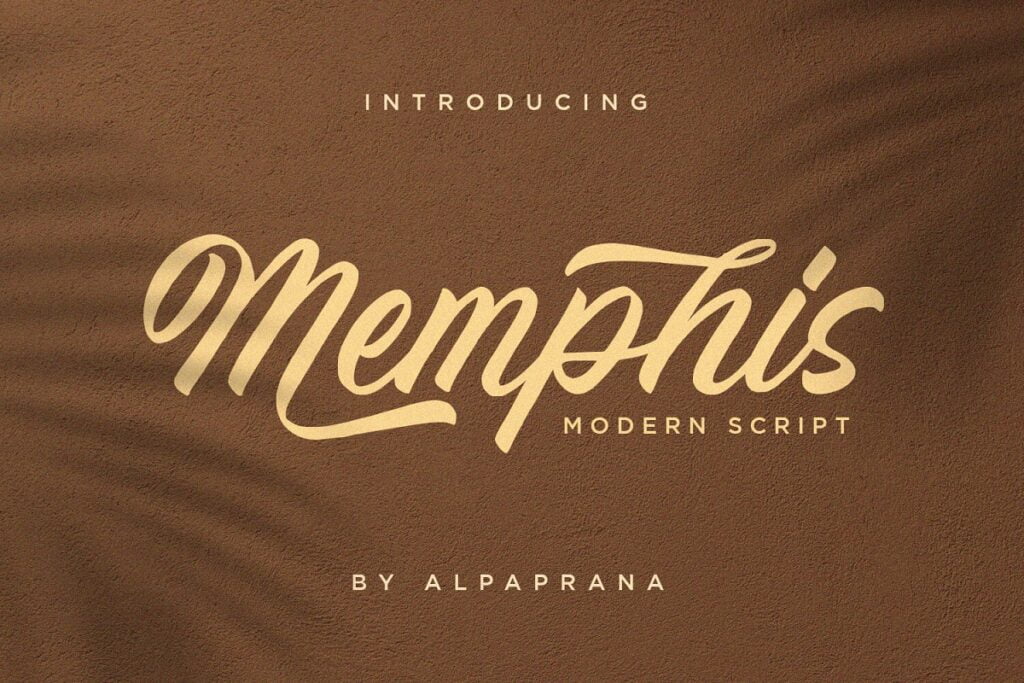
Memphis Font
Memphis is a stunning modern styled script font with authentic and casual feels. Simple, cursive and with a strong visual effect, this font will instantly make your creation more appealing than any others. This font is free for PERSONAL USE.
Memphis Modern Script Font